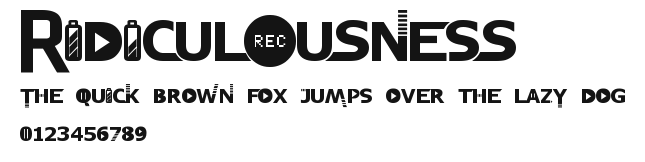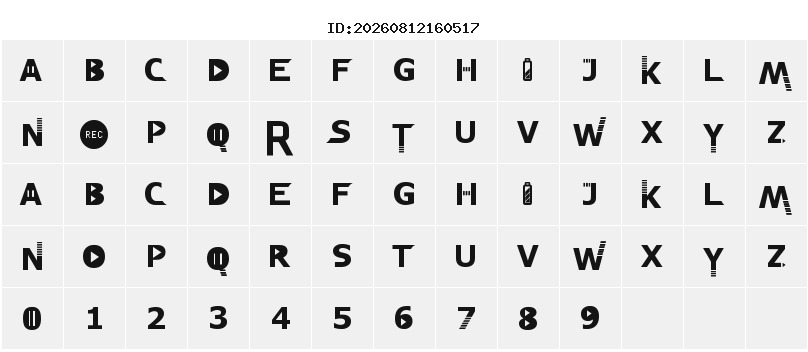
• Font Name: RidIculOuSnesS
• Full Font Name: RidIculOuSnesS
About RidIculOuSnesS.ttf
RidIculOuSnesS.ttf is a modern, elegant sans-serif font designed for ultimate readability and visual harmony. Perfect for branding, headlines, web design, and print materials.